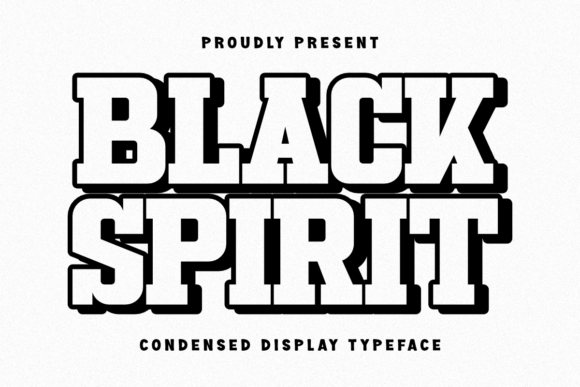
Black Spirit Font: A Bold Statement in Modern Typography
In the world of typography, where style meets function, the Black Spirit font stands out as a striking example of how design can command attention. This ultra-bold, condensed display typeface is more than just a pretty face—it’s a powerful tool for visual communication. With its strong geometric structure and dramatic 3D shadow effect, Black Spirit is designed to deliver maximum impact, especially in environments where space is limited but the message must be loud and clear.
What Makes Black Spirit Unique?
At first glance, the Black Spirit typeface captures the eye with its thick, blocky letterforms. Unlike traditional fonts that prioritize elegance or readability, Black Spirit leans into a bold, urban aesthetic that feels both modern and intense. The font’s condensed structure makes it especially useful for projects that require strong visual presence without consuming much space.
One of the most distinctive features of this font is its layered shadow effect, which gives each letter a three-dimensional quality. This isn’t just for show—it’s a design choice that enhances visibility and impact, making the font ideal for applications like posters, headlines, and branding materials.
- Ultra-bold design for high visibility
- Condensed layout for space efficiency
- 3D shadow effect to add depth and dimension
- PUA encoding for easy access to alternate characters and decorations
Practical Uses of Black Spirit Font
The Black Spirit font shines in environments where visual strength is key. It’s particularly well-suited for:
- Posters and banners – Its boldness ensures that headlines stand out even from a distance.
- Sports branding – The aggressive look of the font aligns perfectly with the energy and intensity of athletic branding.
- Music industry visuals – Whether for album covers or concert posters, Black Spirit adds a modern, edgy flair.
- Urban fashion and streetwear – The contemporary, blocky design resonates with urban aesthetics and youth culture.
Because of its condensed nature, Black Spirit is also a go-to choice for designers working with limited space but needing to convey a powerful message. Think of magazine covers, social media graphics, or mobile app headlines—situations where every pixel counts.
How Black Spirit Fits Into Modern Design Trends
In today’s design landscape, where minimalism often reigns, the Black Spirit typeface offers a refreshing contrast. It embodies the trend of using bold typography to create visual hierarchy and emotional impact. Designers are increasingly turning to high-contrast, high-impact fonts to break through the noise of digital content.
Moreover, with the rise of branding that leans into urban and subcultural aesthetics—think skate culture, hip-hop, and street art—Black Spirit finds a natural home. Its blocky, shadowed letters evoke a sense of strength, rebellion, and confidence, making it a favorite among creatives who want to make a statement.
Why Designers Love Black Spirit
Design professionals appreciate the Black Spirit font not only for its visual appeal but also for its practicality. Here are some of the reasons it’s a popular choice:
- PUA encoding allows for seamless use of alternate characters and decorative elements without requiring special software.
- High legibility at a distance, making it ideal for print and digital signage.
- Strong geometric foundation ensures consistency and stability in design layouts.
- Versatile style that can be adapted to both digital and physical media with equal effectiveness.
Whether you're designing a poster for a music festival or crafting a bold logo for a new brand, Black Spirit offers the visual punch needed to capture attention and communicate authority.
Common Misconceptions About Black Spirit
Despite its popularity, there are a few misconceptions about the Black Spirit typeface that are worth clarifying:
- Misconception 1: “It’s only for headlines.” While it’s true that Black Spirit excels in headlines, creative designers have found ways to incorporate it into supporting text when used sparingly and with appropriate spacing.
- Misconception 2: “It’s too aggressive for professional use.” While the font has a bold personality, it can be used effectively in professional contexts—especially those that aim to project confidence, innovation, or strength.
- Misconception 3: “It doesn’t pair well with other fonts.” On the contrary, Black Spirit works well with clean, minimalist sans-serif fonts, creating a strong visual contrast that enhances overall design.
Understanding these nuances can help designers make the most of the font without limiting its potential.
Black Spirit in Everyday Design Projects
While the Black Spirit font might seem like a niche choice, it's surprisingly versatile for everyday design needs. Consider these real-world examples:
- Fitness branding – Gym logos and motivational posters benefit from the font’s bold, powerful appearance.
- Video game titles – The futuristic and intense look of Black Spirit is often used in gaming visuals to convey action and intensity.
- Urban art and graffiti-inspired design – Artists and designers use it to evoke a sense of rebellion and modern street culture.
- Advertising and promotions – Especially in sectors like fashion, music, and sports, where bold visuals are key to grabbing attention.
Even in smaller-scale projects like Instagram stories or YouTube thumbnails, Black Spirit can be used strategically to create a memorable visual identity.
Conclusion: Why Black Spirit Stands Out
In a world where attention spans are short and visual competition is fierce, the Black Spirit typeface offers a compelling solution. It’s not just a font—it’s a design statement. With its condensed form, bold presence, and dramatic shadow effect, it ensures that your message isn’t just seen, but felt.
Whether you're a seasoned designer or just starting out, Black Spirit provides a powerful tool for creating visuals that stand out. It’s a testament to how typography can influence perception, evoke emotion, and drive engagement. So the next time you're working on a project that demands strength and clarity, consider giving Black Spirit a try—you might just find it’s the bold voice your design has been waiting for.